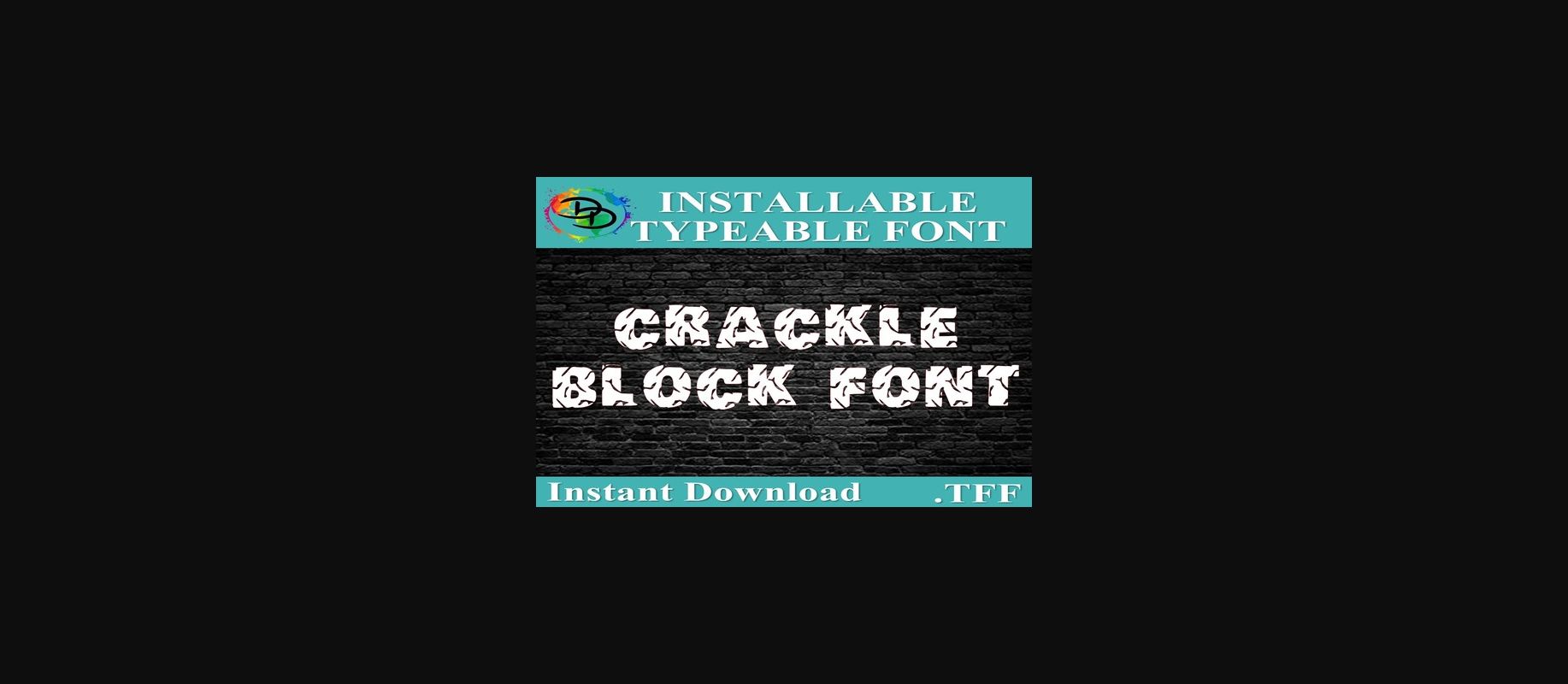
HomeDecorative FontsCrackle Block Font Decorative Fonts Crackle Block Font FacebookXPinterestWhatsApp 1 of 4 ... Crackle Block Font Poster 2... Crackle Block Font Poster 3... Crackle Block Font Poster 4... About Crackle Block Font Crackle Block is a weird and distressed monogram font with a bold twist. It will add a grunge feel to any design project! DOWNLOAD NOW People also explored EB Bellissimo Display Quickie Home Alone Font Clonoid Paradox Font Biscuits Font Wonder of Magic Font Paralucent Pro B Angeline Font 355 0 TagsCrackle Block Font Previous articleAnamazone FontNext articleSinggalang Font LEAVE A REPLY Cancel reply Comment: Please enter your comment! Name:* Please enter your name here Email:* You have entered an incorrect email address! Please enter your email address here Website: Save my name, email, and website in this browser for the next time I comment. Personal Use Free Old Linoleum Personal Use Free Read more about this font Cinderella Personal Use Free Read more about this font Bukan Personal Use Free Read more about this font Proudly Personal Use Free Read more about this font BLOG How to Cut Any Font on Cricut: Convert a Font to SVG (Free) Turn any font into a clean SVG so it cuts crisp on Cricut - a quick 3-step workflow using a free font-to-SVG tool. Top 7 Google Fonts Alternatives for Faster and Privacy-Friendly Web Design (2025) 5 Fonts That Will Dominate Design Trends in 2026 How to Install and Use Fonts on Windows, macOS, and Web Projects